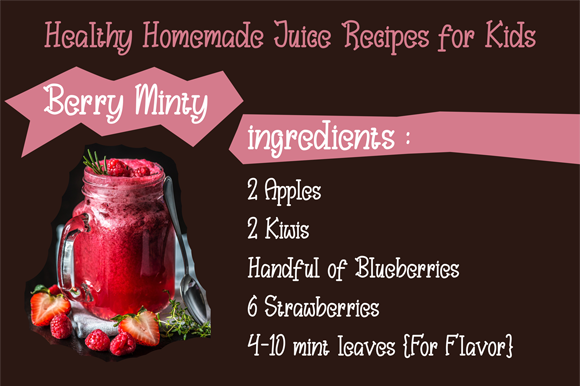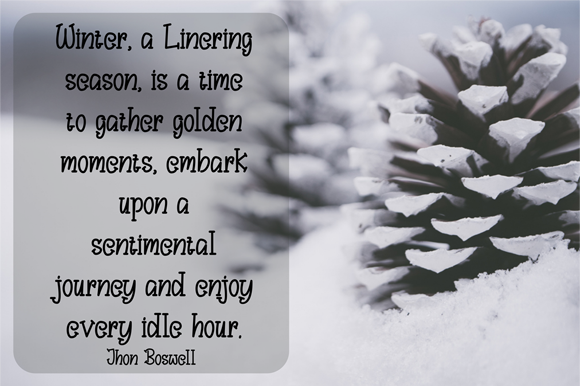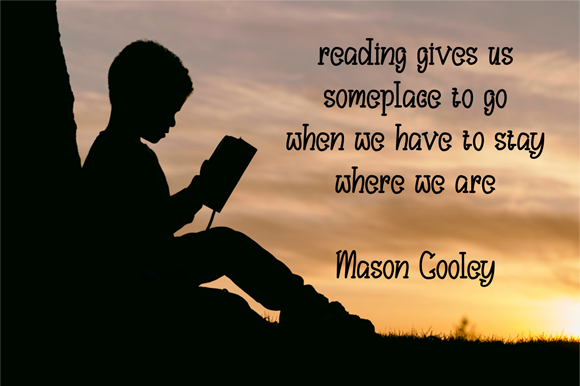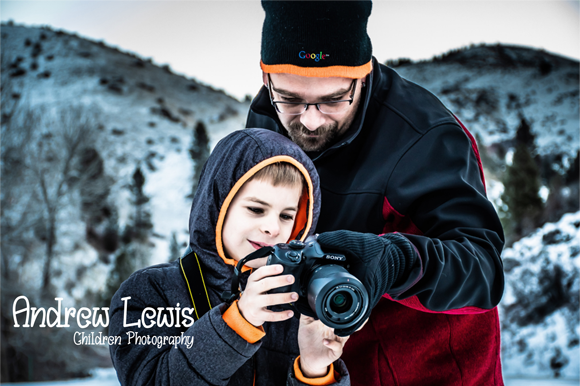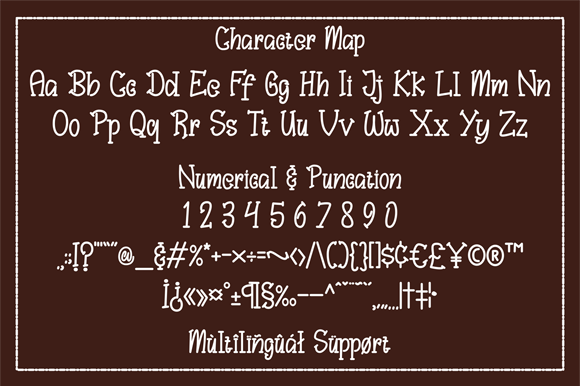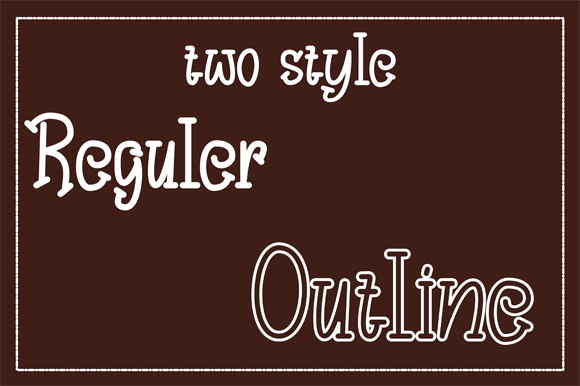
Bungah Font
About Bungah Font
The Bungah is an unique script font. It has a childish theme and will add a fun touch to your designs.
It’s perfect for logos, quotes, clothes, mugs, magazines and much more!